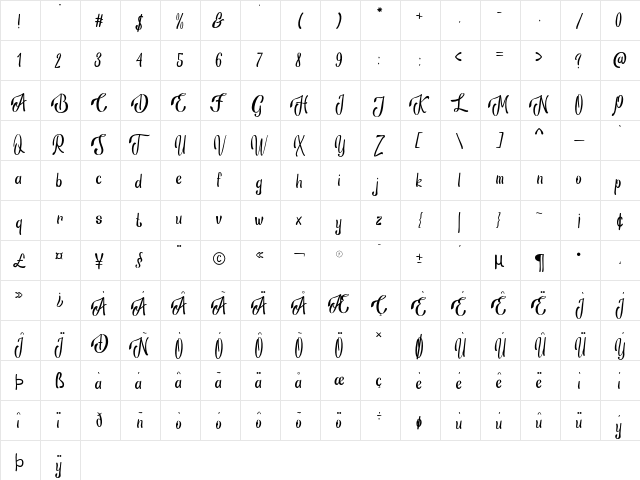
Ansagia Metta Regular Font Preview
Ansagia Metta Regular
Ansagia Metta Regular Font Details
| Foundry | Stringlabs Studio |
Design Context for Ansagia Metta Typeface
Ansagia Metta is a composed and adaptable typeface that performs quietly and consistently across a wide range of design contexts.